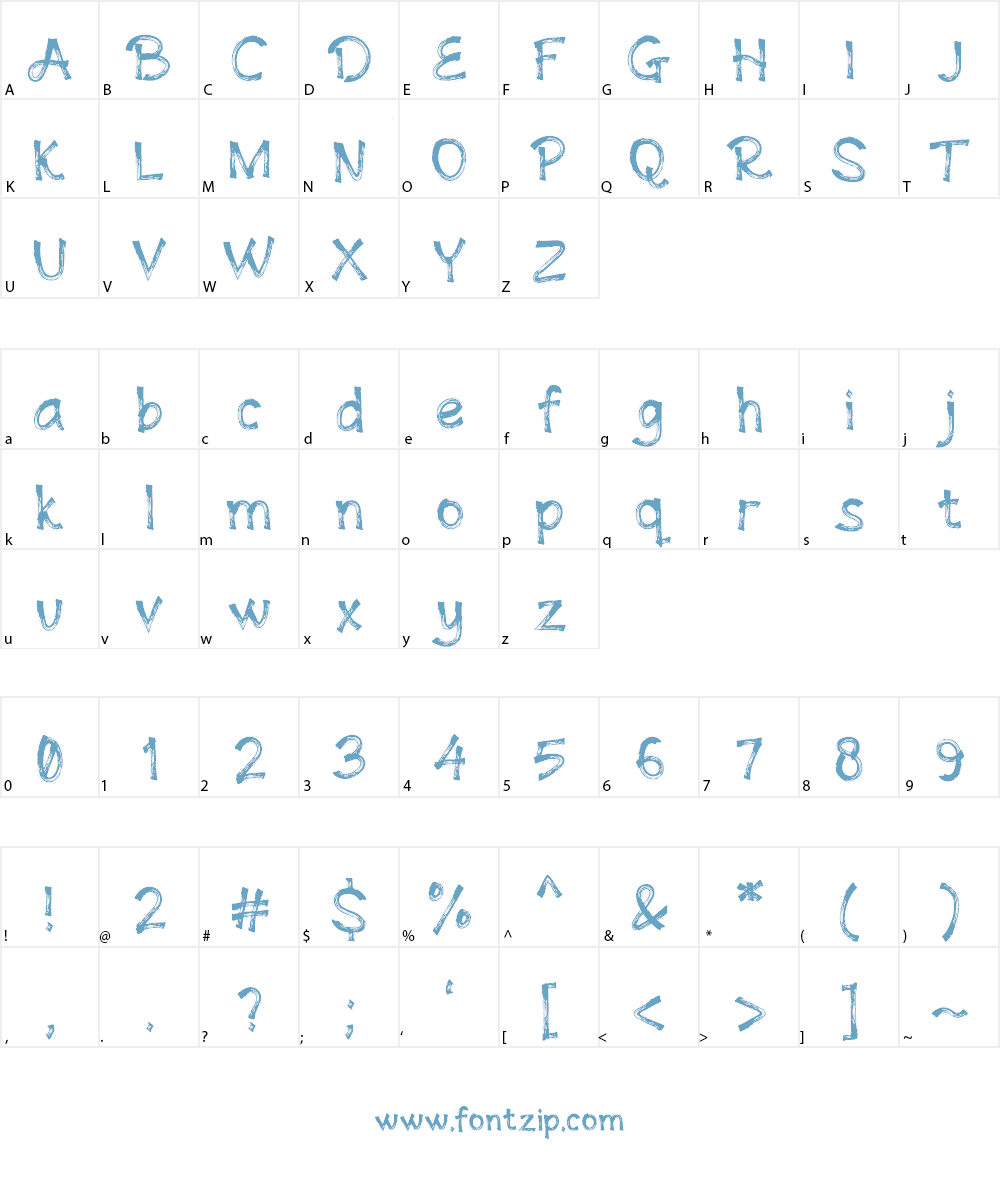
Andovine is a handbrush font with authentic style. This font is made with a brush pen with very careful techniques, so the results are charismatic and have enchanting characteristics.